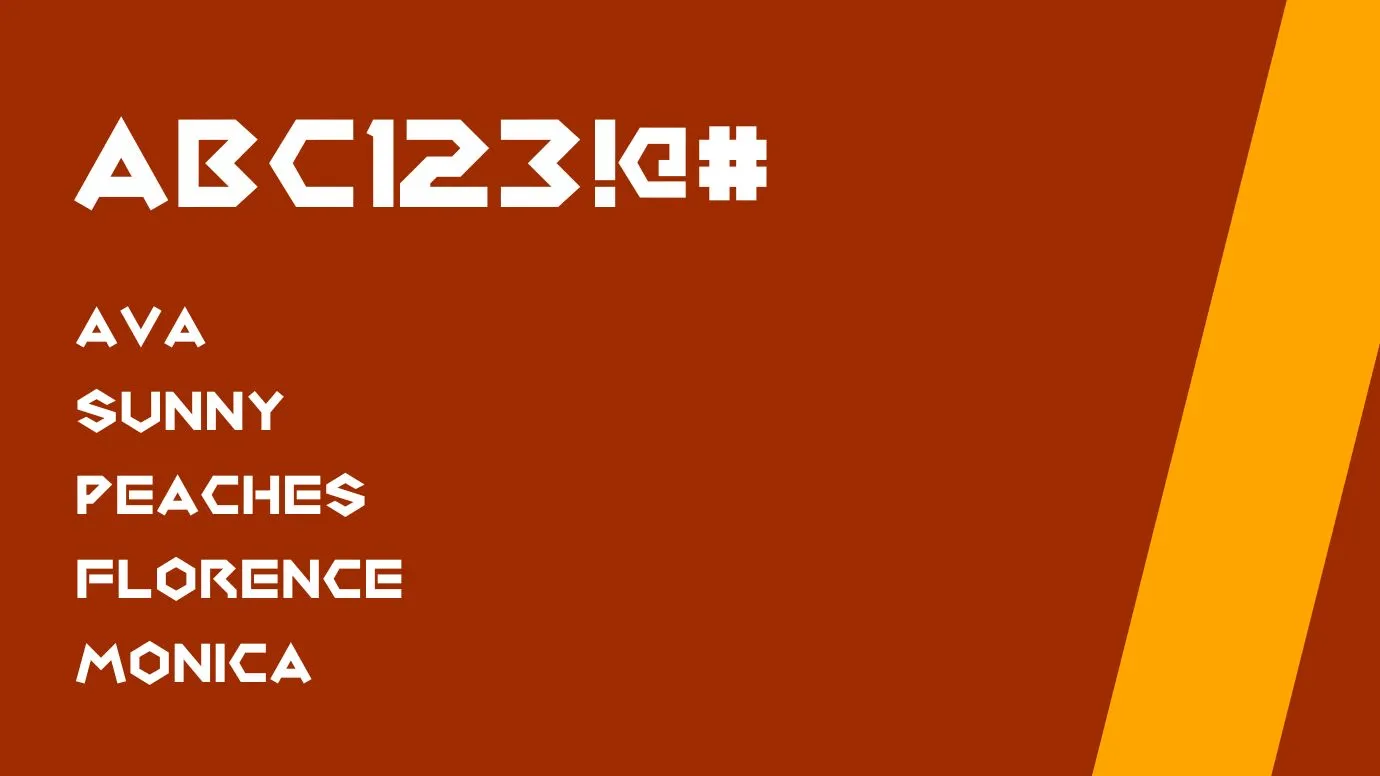
Another amazing font, Medabots Font which is designed by Pixel Sagas is a techno-style font with a hexagonal edging, based heavily on the logo of Hasbro’s toy line of the same name.
The typeface is a bold and creative texture appearance that can be best utilized in the display and creative designs. It features high contrast and strong appearance letters.
This font includes full alphanumerics and extended punctuation, It comes in regular, bold, and italic versions. It has been designed like a movie poster. The typeface is quite different and unique from other font family members.
The typeface is a techno-style font. Some fonts have the same personalities as the font texture like Tron Font. Both typefaces are techno-style fonts with hexagonal edging in them.
The cool and stylish font can be used in creating stunning logos, posters, game texture content, invitation cards, wallpaper layout text, etc.
Medabots Font Family includes
- Medabots Regular
- Medabots Italic
- Medabots Bold
| Style | Tecno |
What type of typeface is Medabots?
The typeface is famous all over the world because of its bold and creature texture touch. Medabots designed by Pixel Sagas is a techno-style font with a hexagonal edging.
Where can you apply the typeface?
Medabots designed by Pixel Sagas is a techno-style font and can be utilised in several various projects.